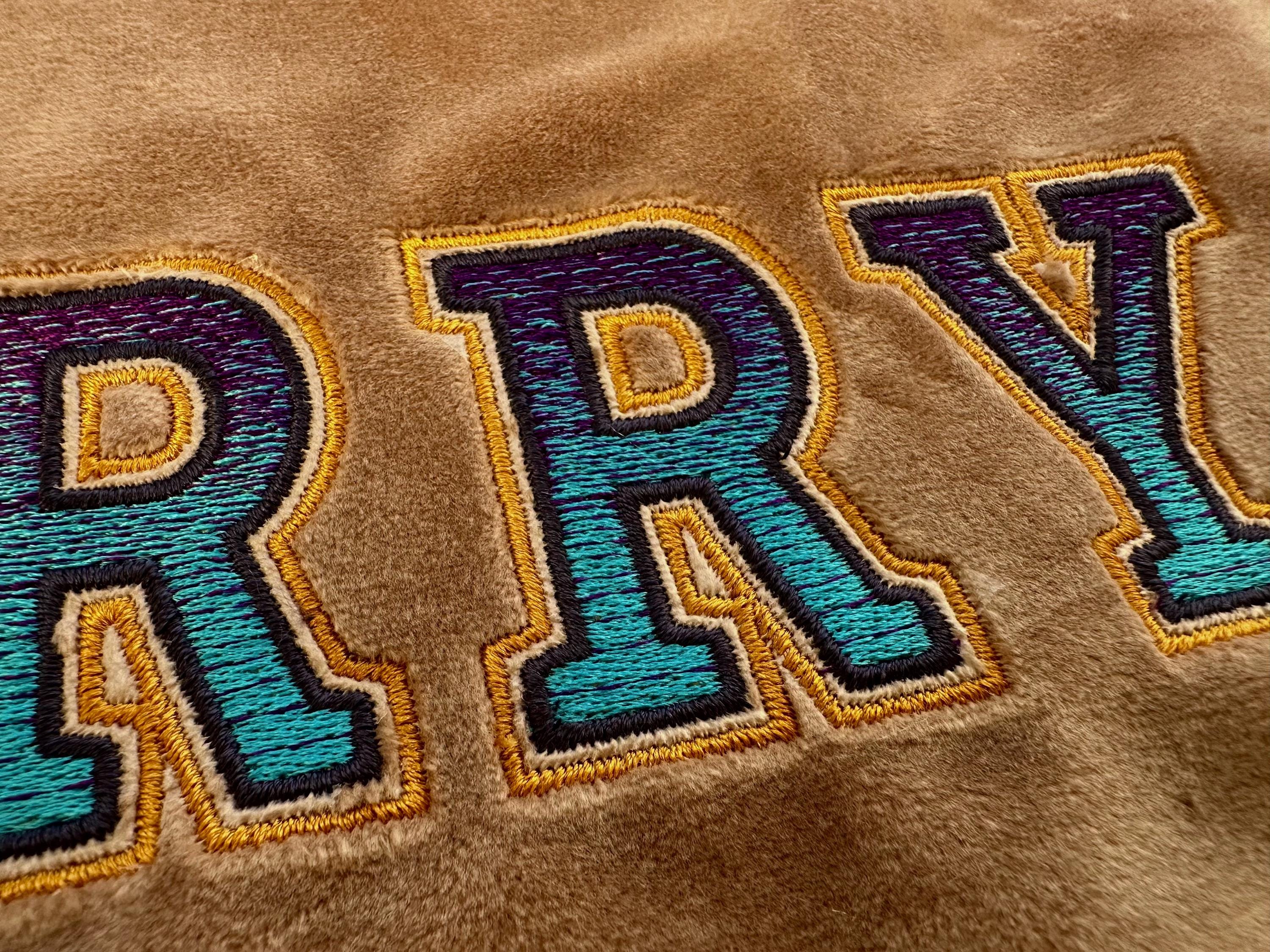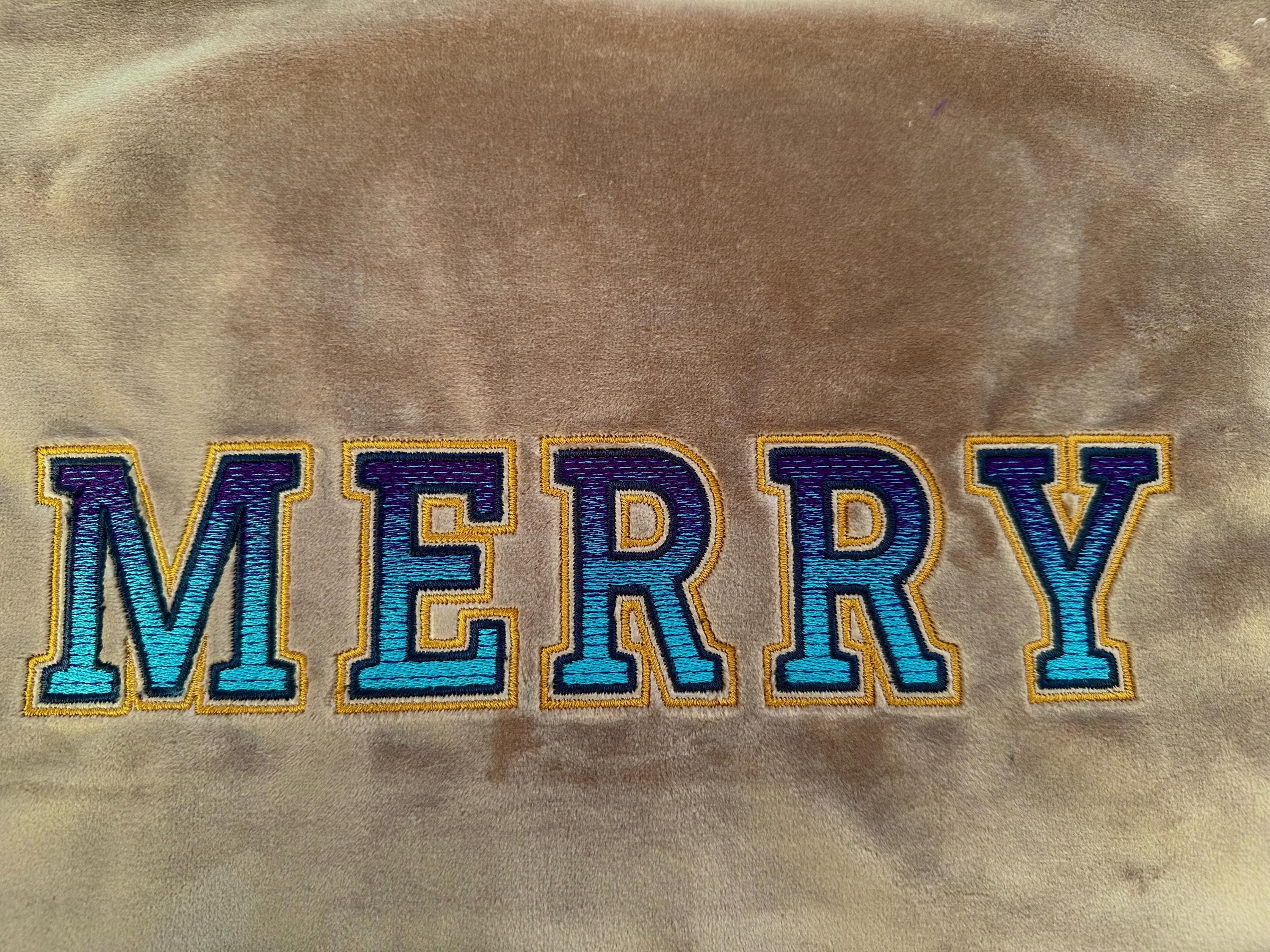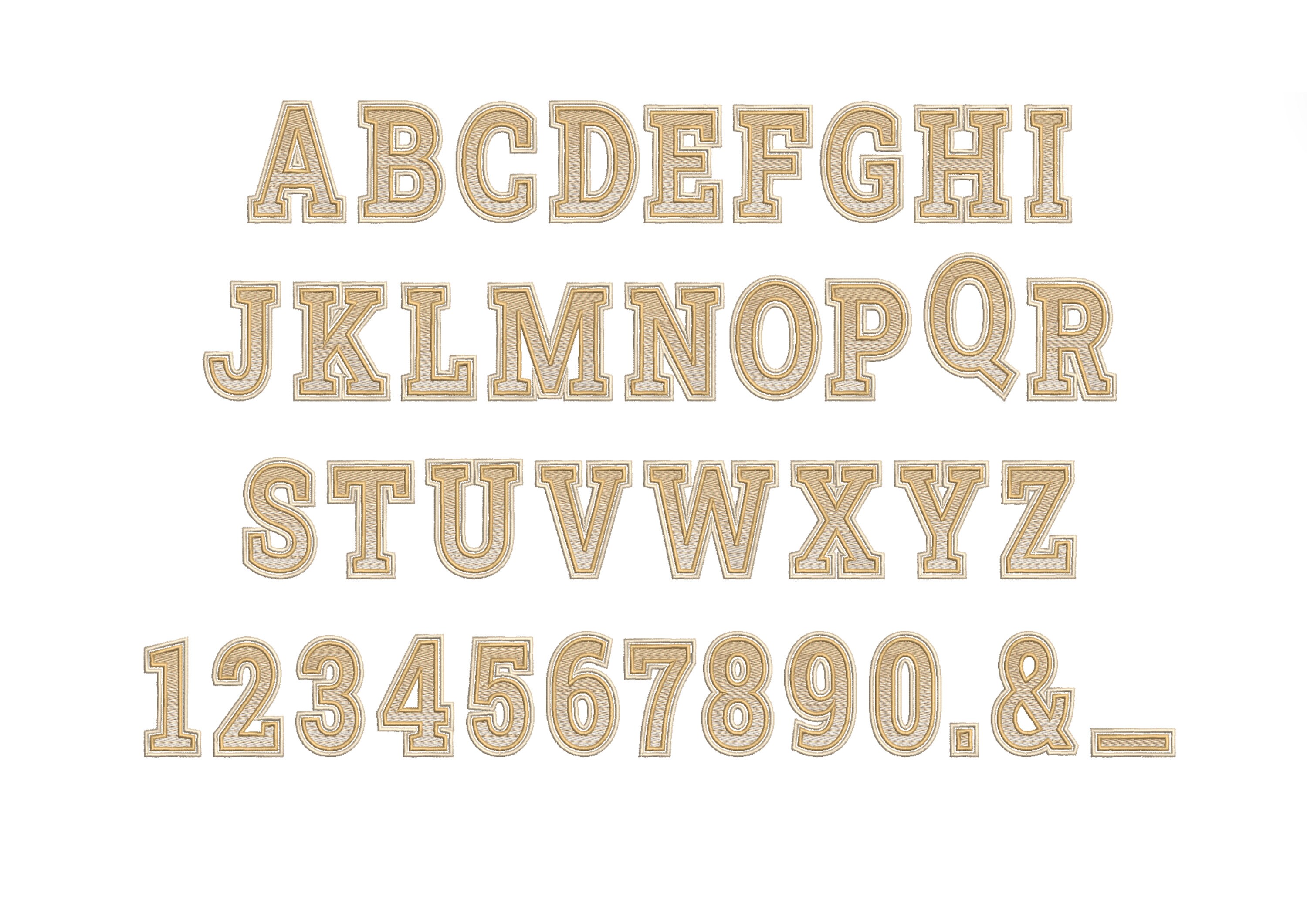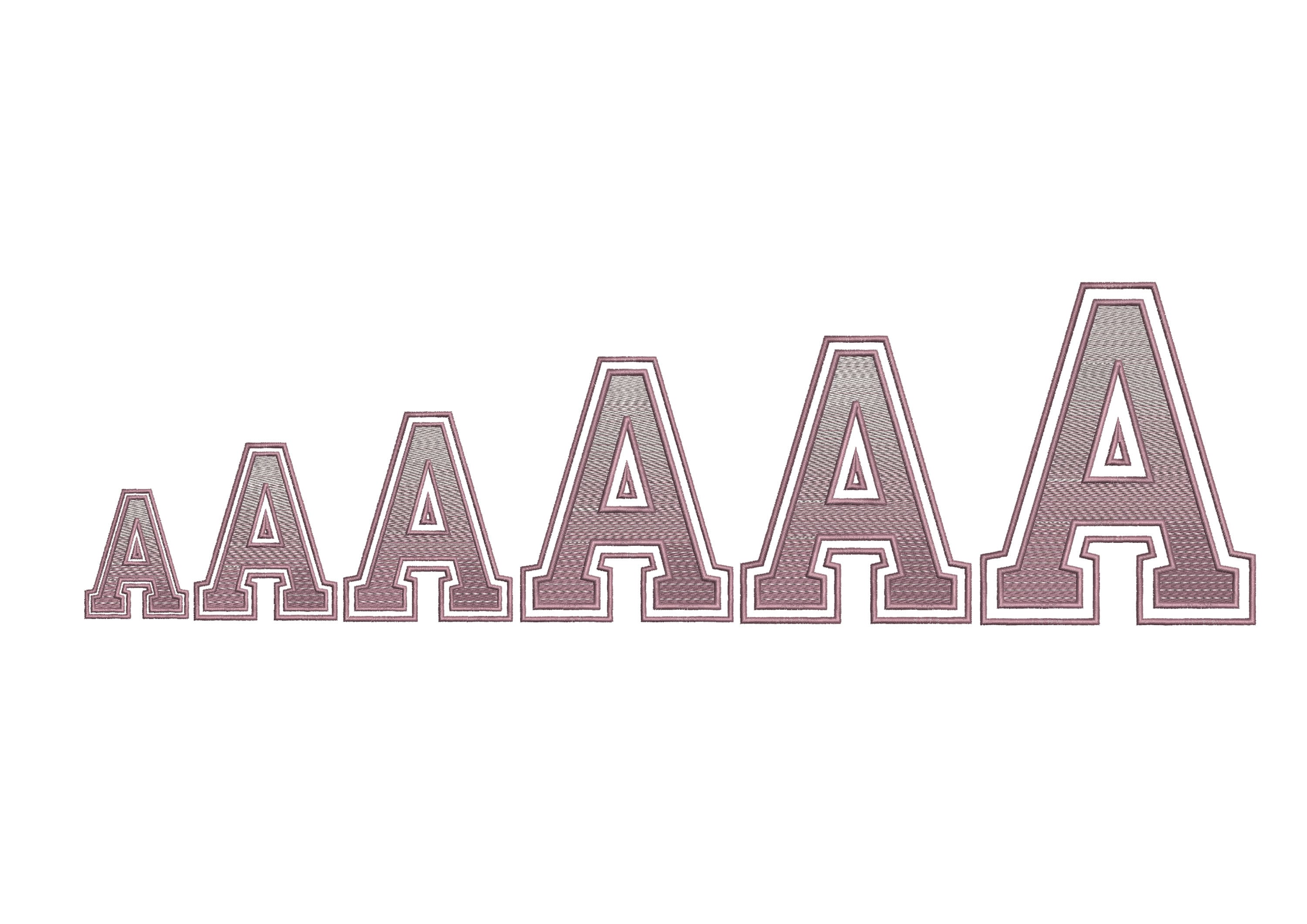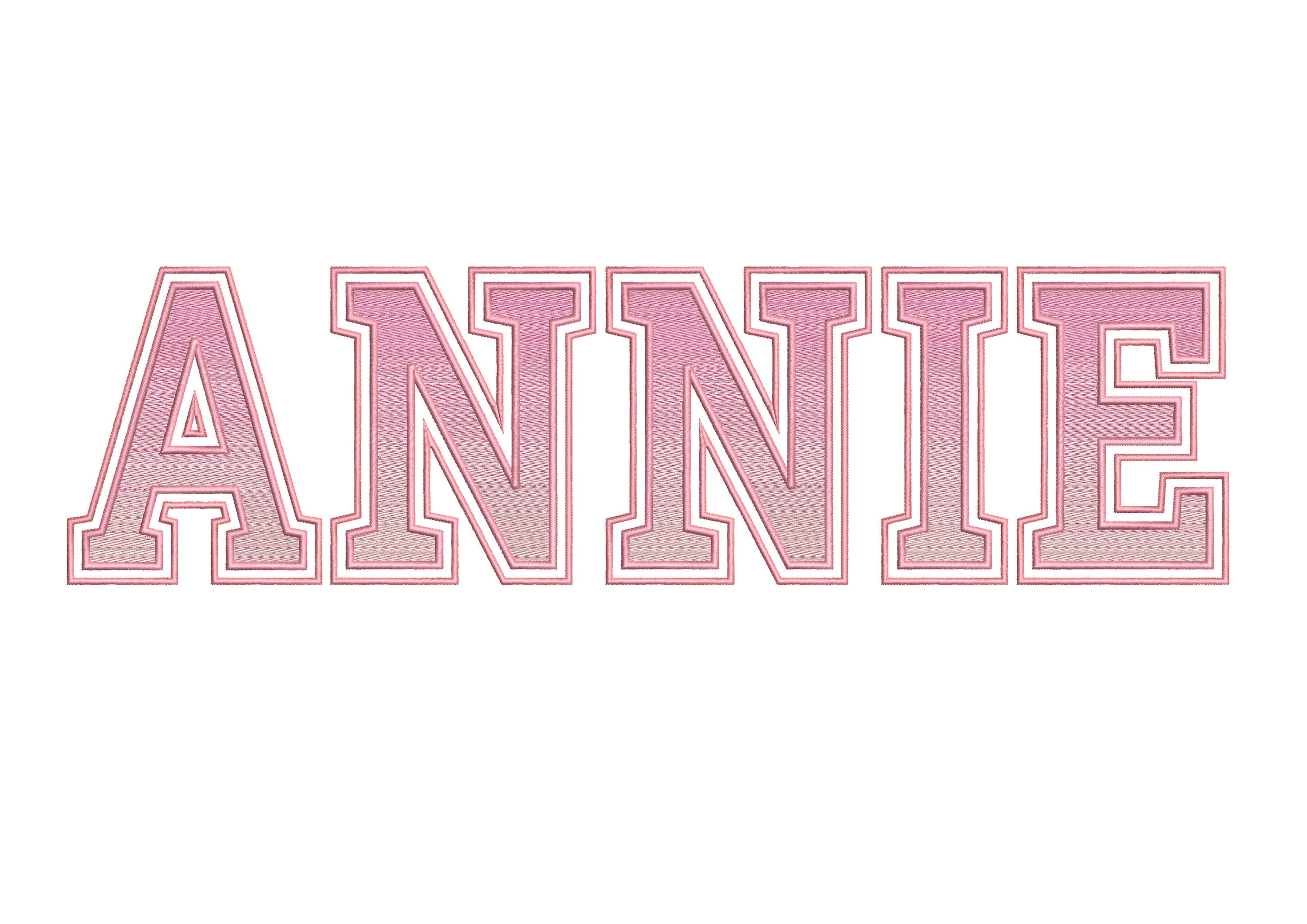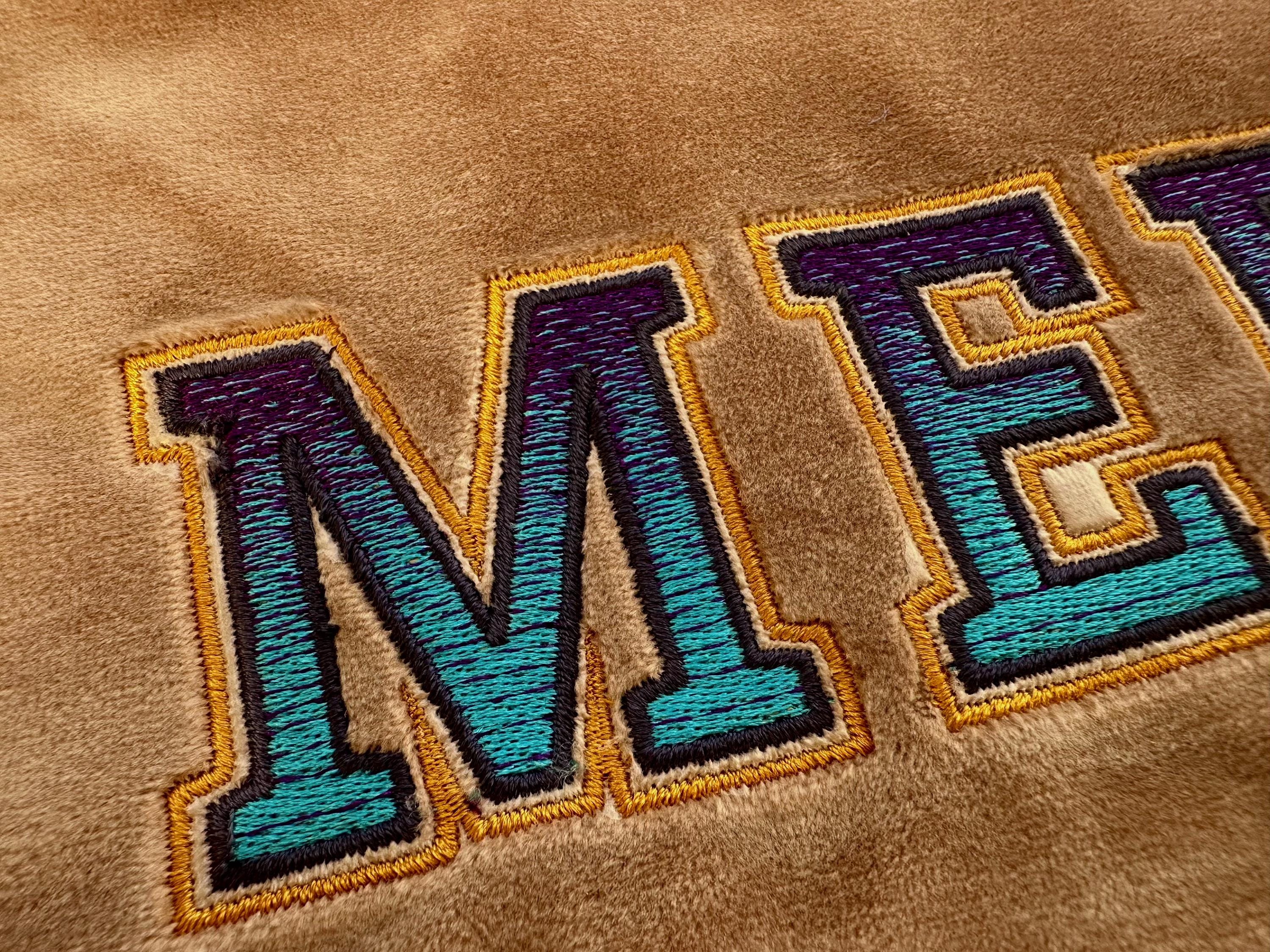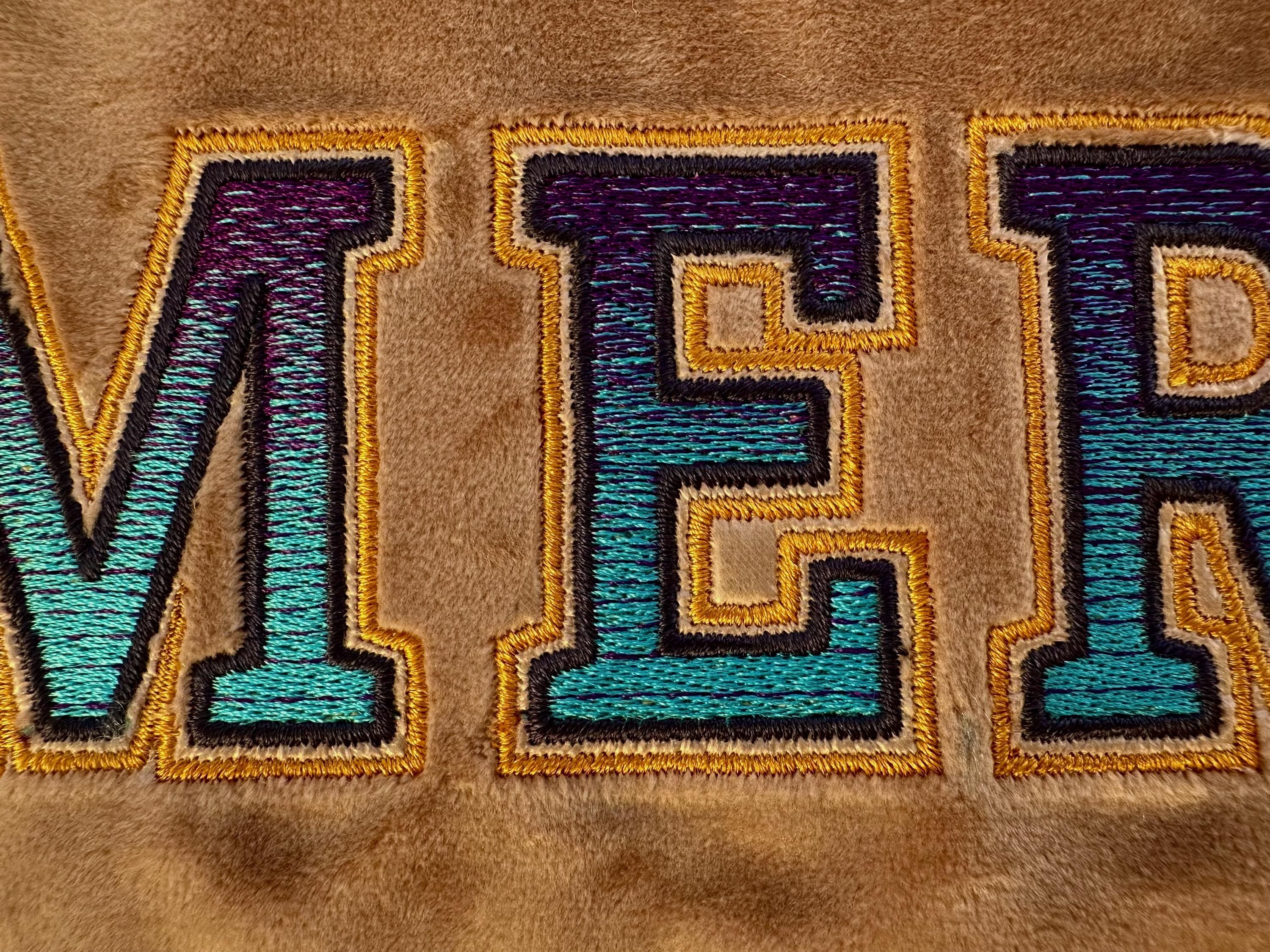
Glitter vinyl narrow FONT Double two layer applique Athletic Sport High School Team Players machine embroidery designs terry & glitter font
This alphabet is perfect to make terry and glitter letters.
Two applique layers (double outline sport font)
Entire alphabet uppercase letters, numbers and punctuation.